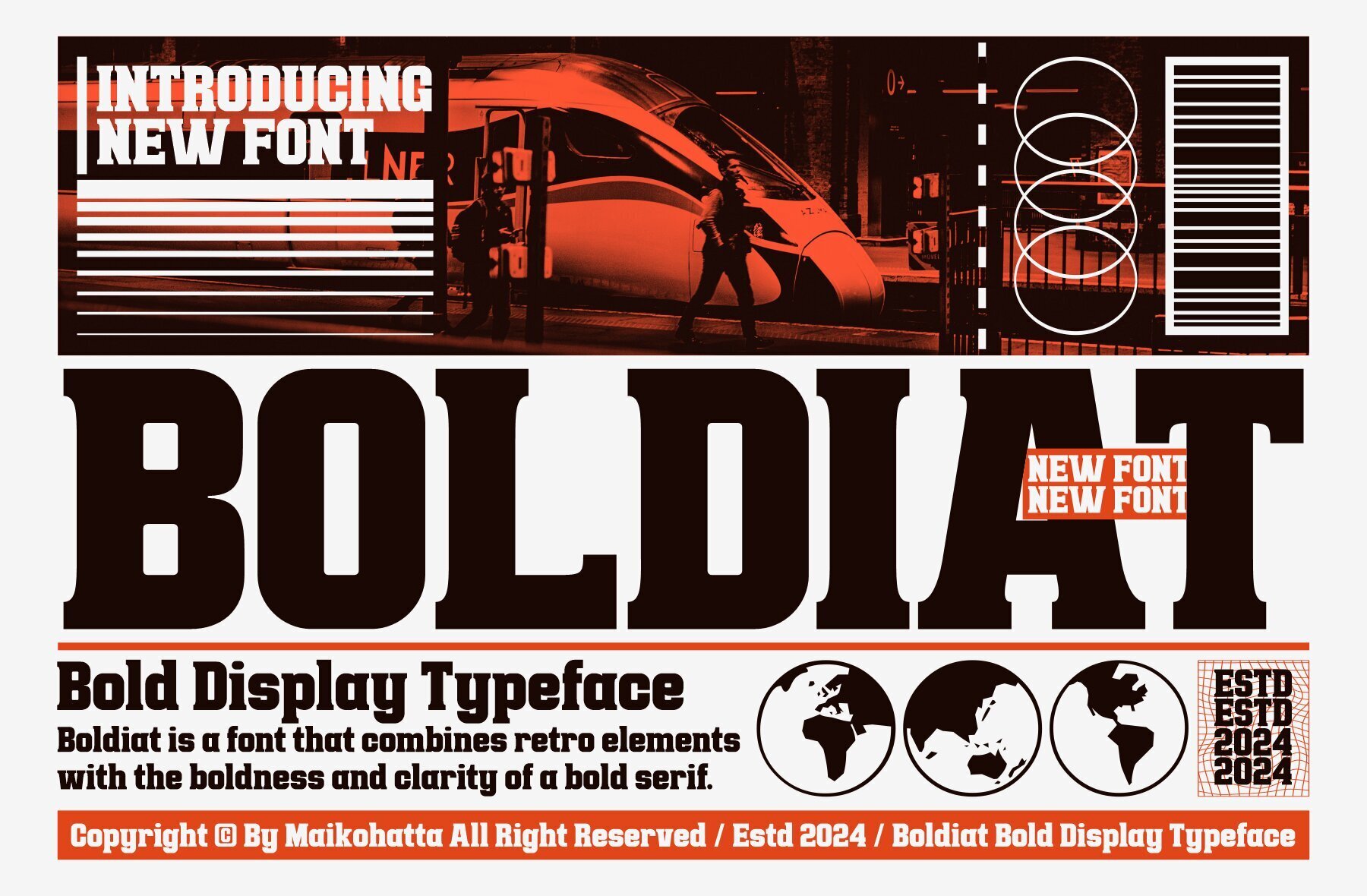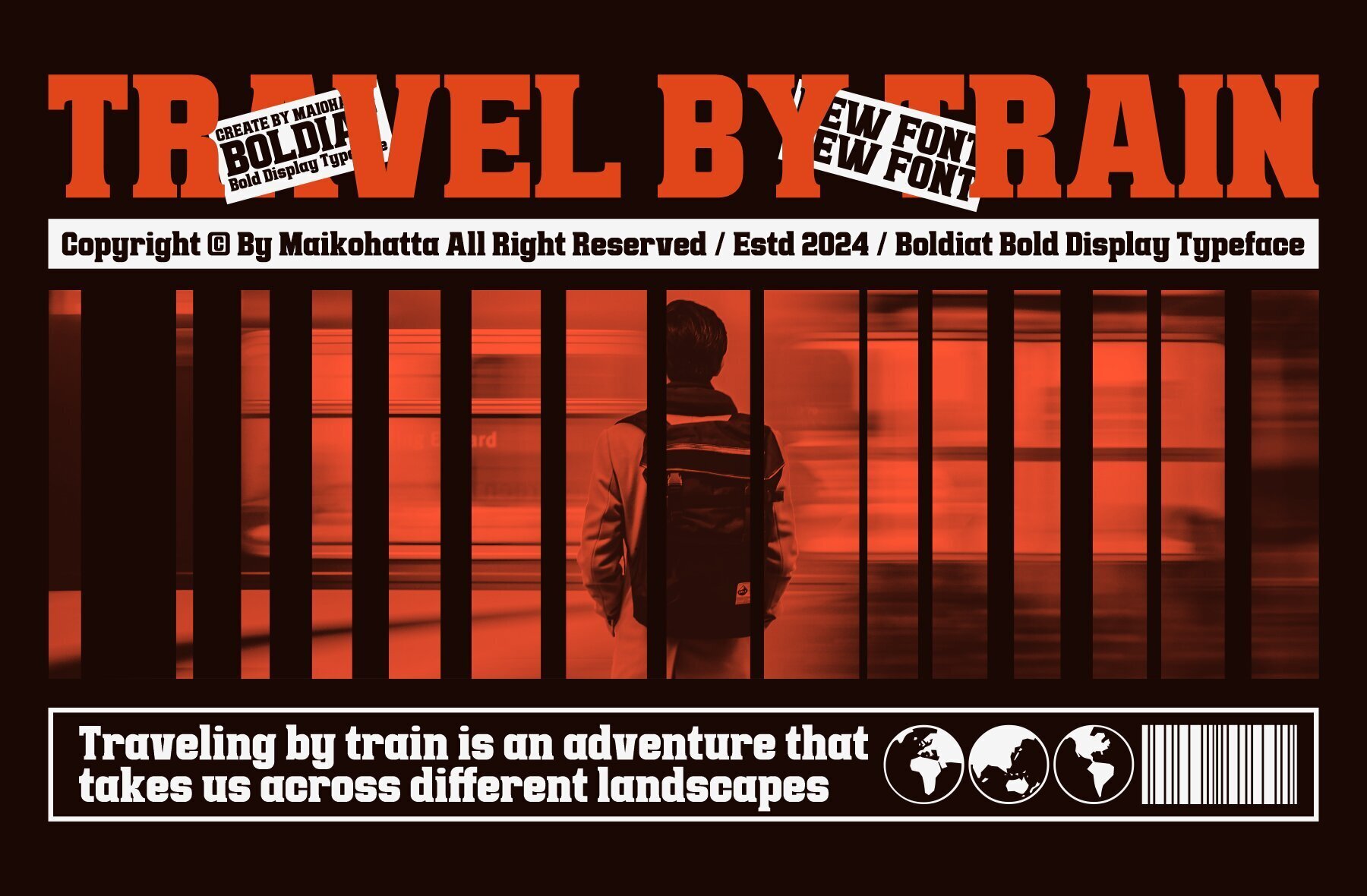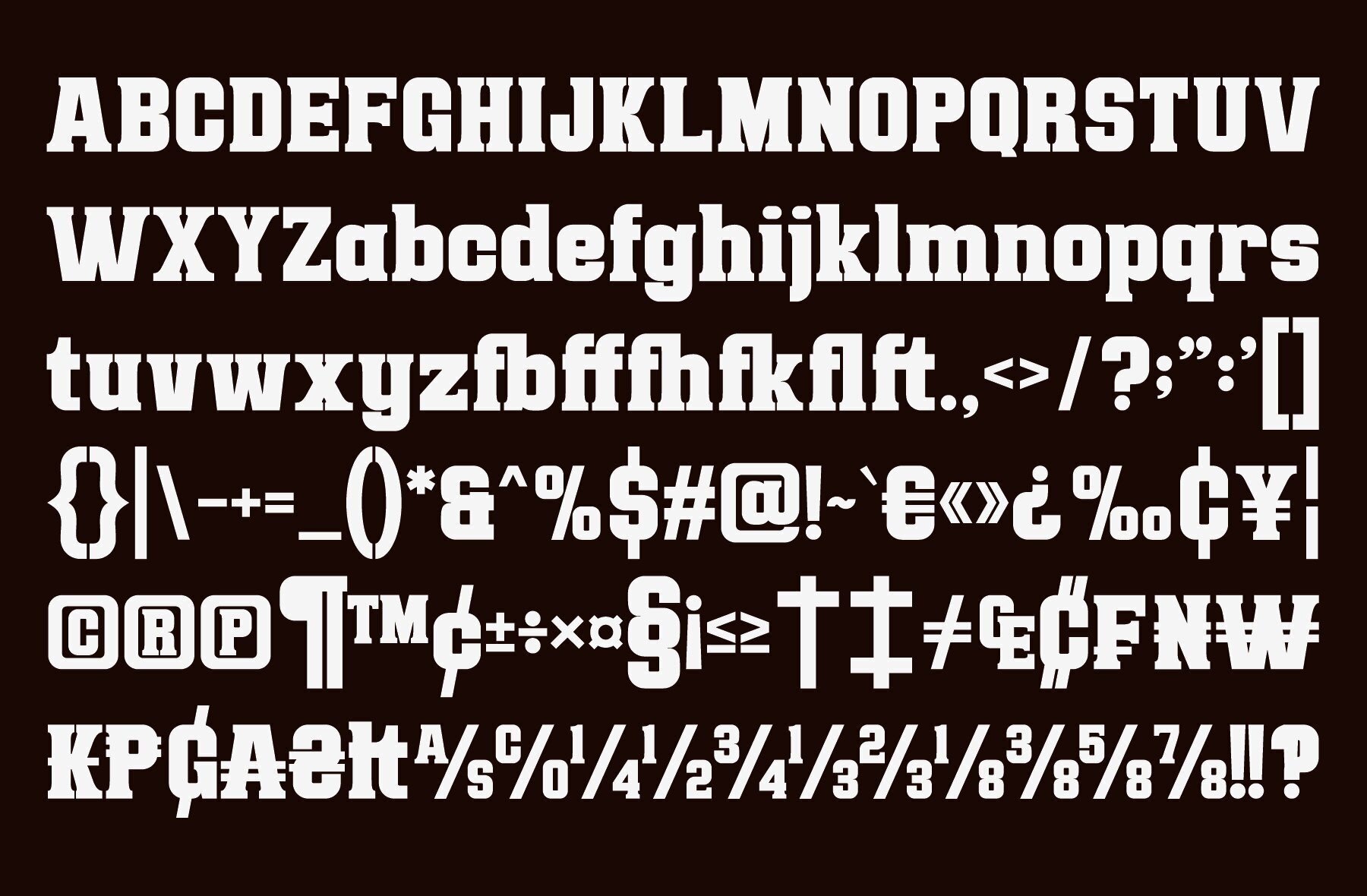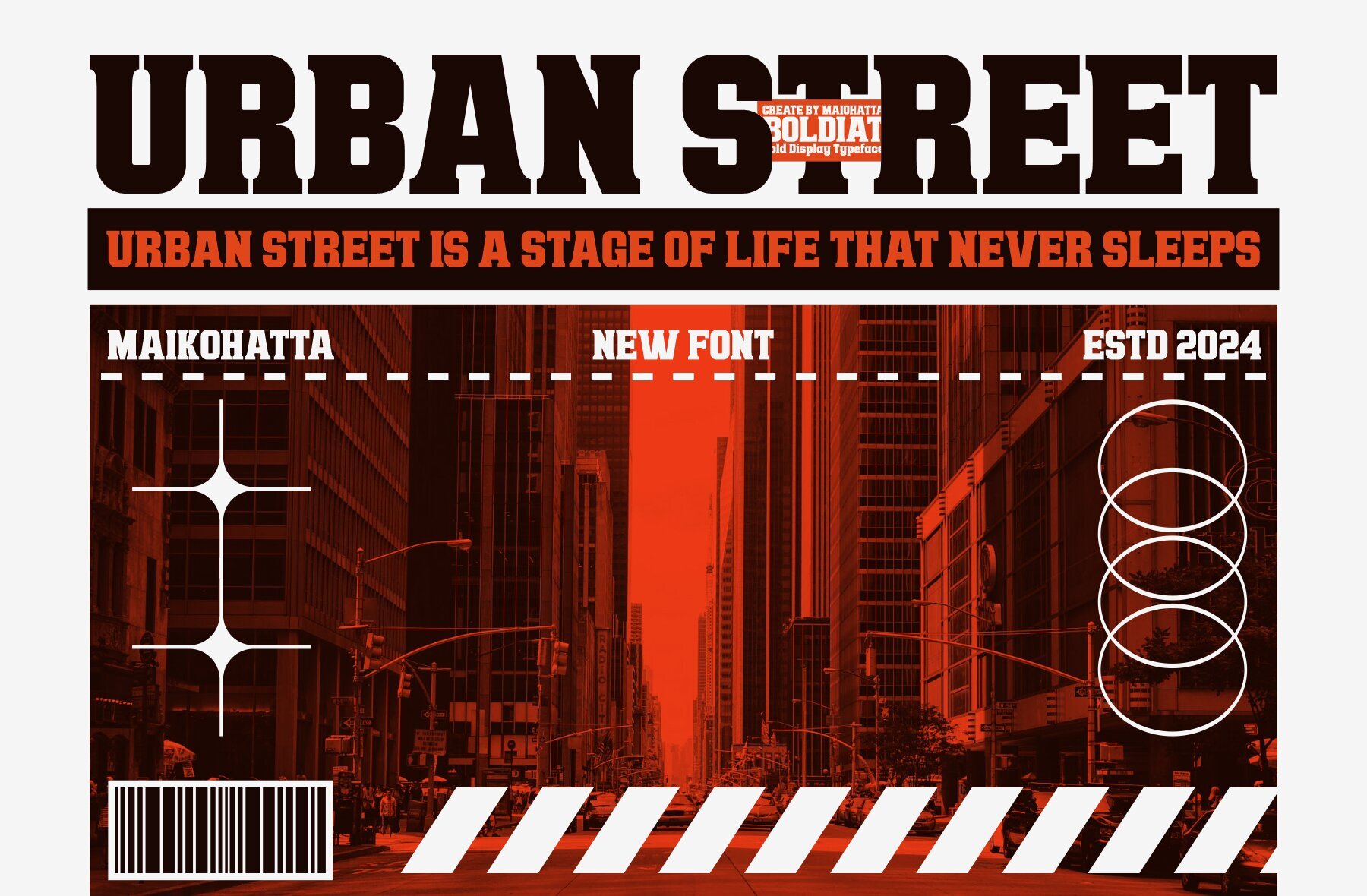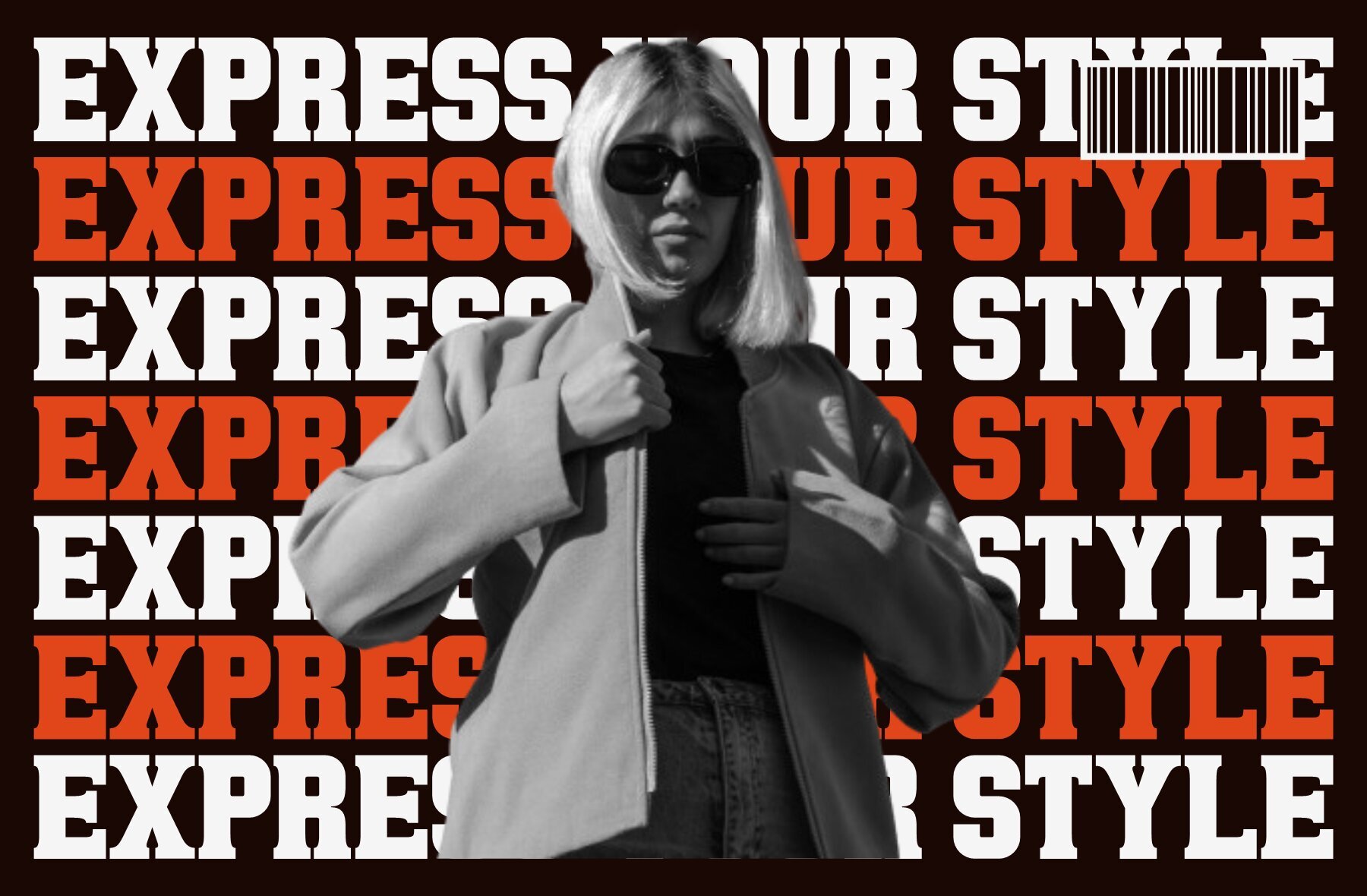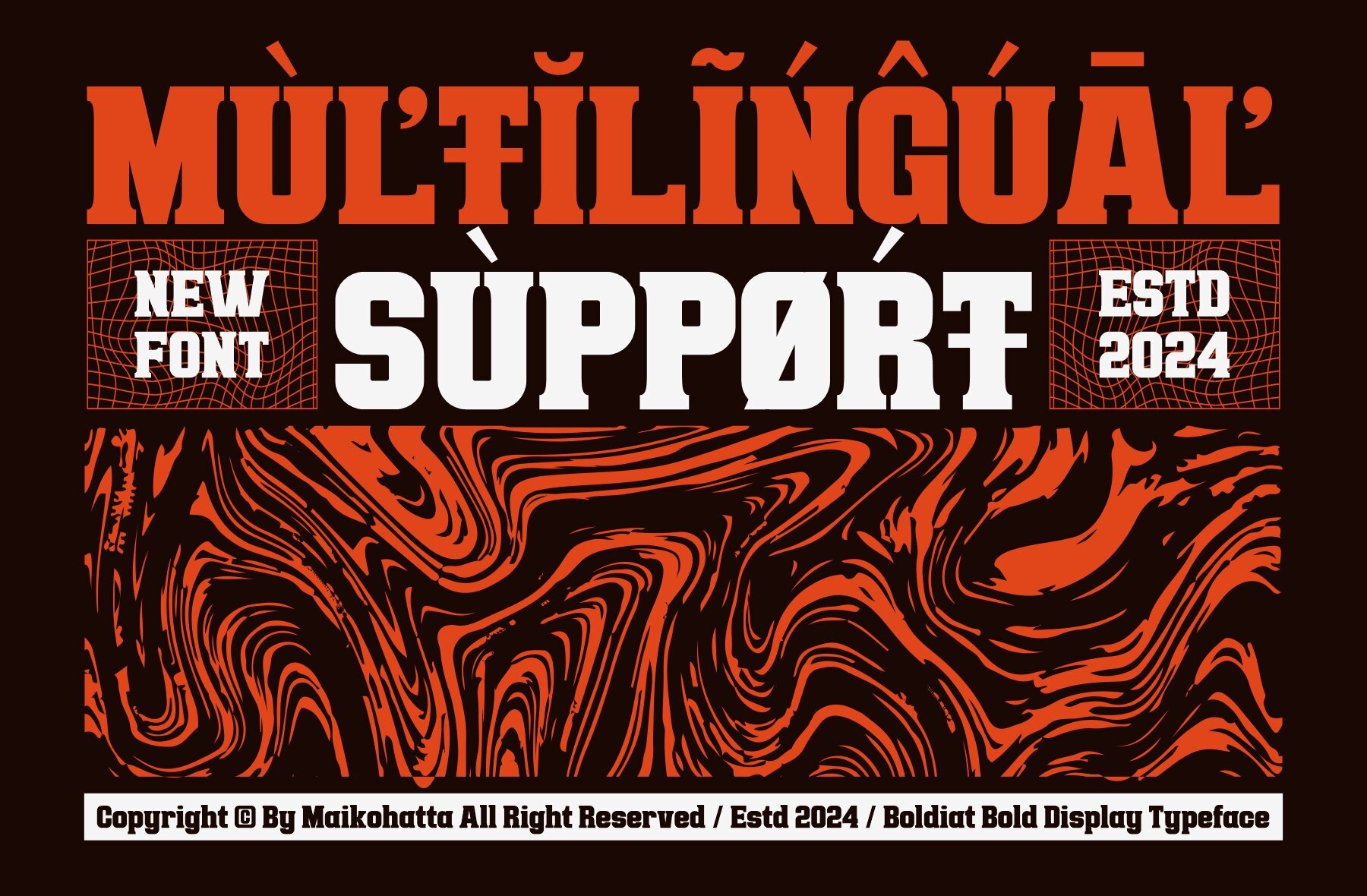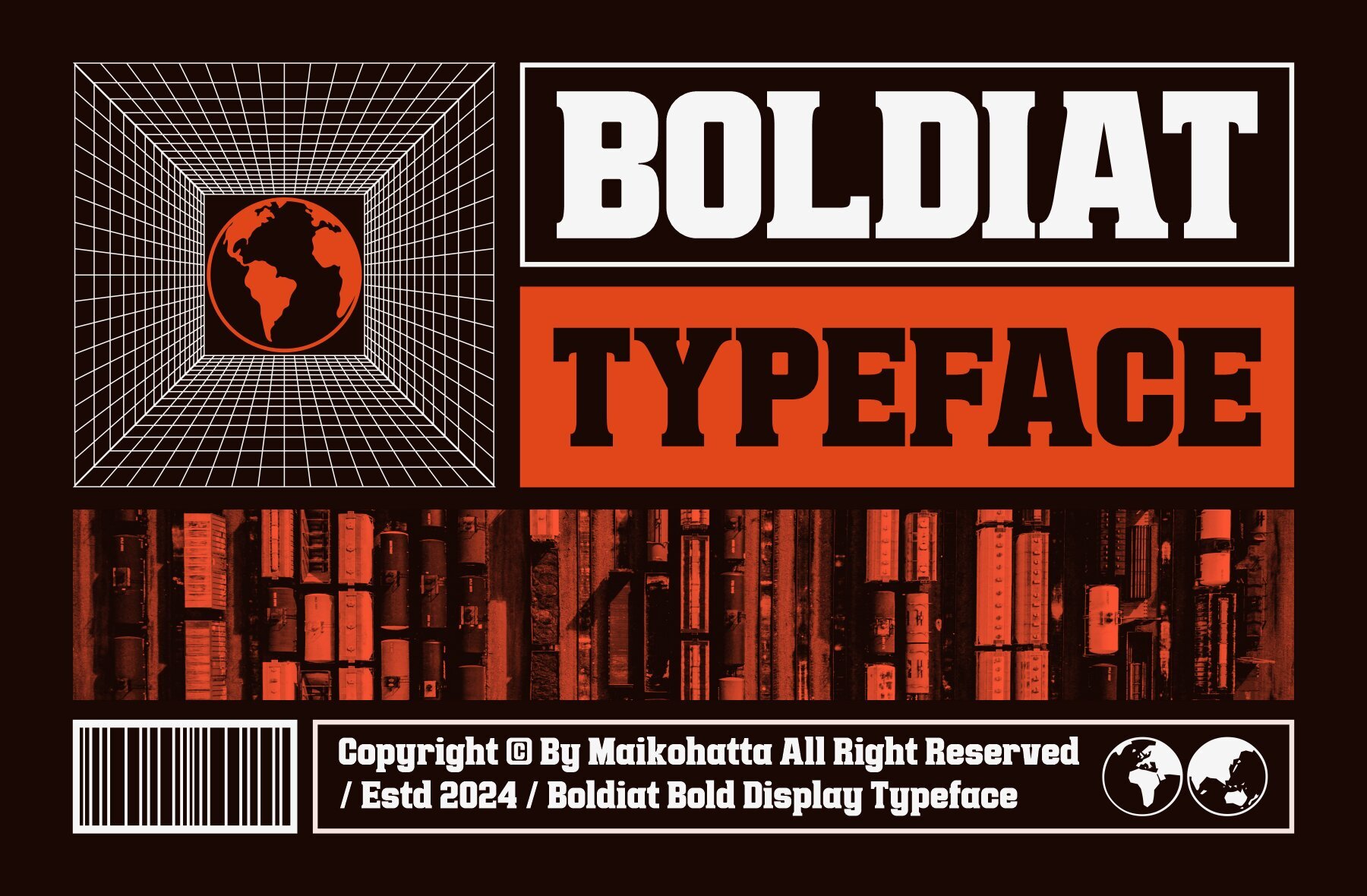
Boldiat Font
Boldiat Regular
Boldiat is a bold display typeface featuring decorative serifs at the ends of its characters, providing a formal, classic, and easily readable appearance. Ideal for formal documents, books, and print publications, this serif font ensures good legibility even at small text sizes. Features: